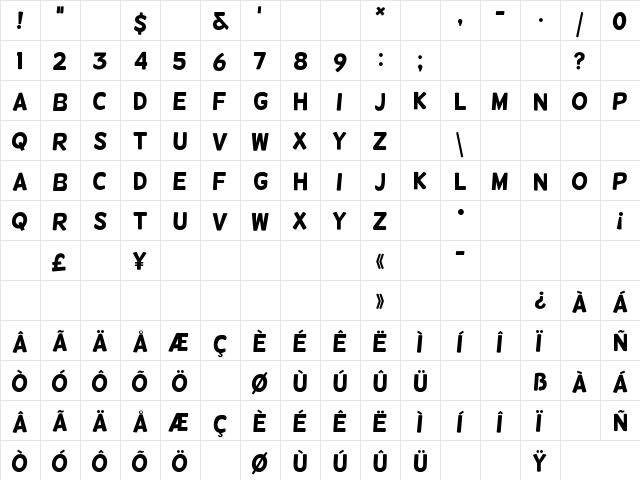
Helsinki Regular
Design Context for Helsinki Typeface
Helsinki offers clean, dependable letterforms without strong stylistic allegiance, making it a practical choice for designers who need flexibility.